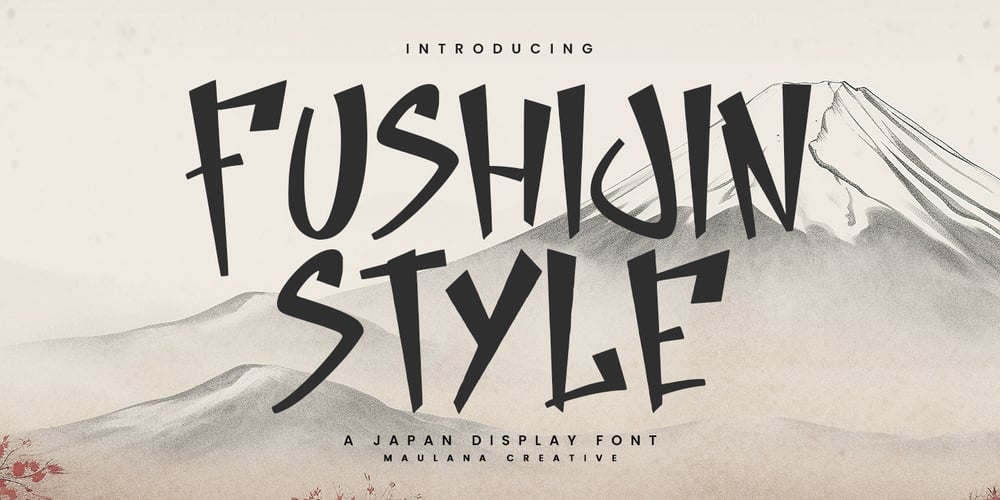
MC Fushijin Font Family was designed by Gilang Maulana and published by Maulana Creative. MC Fushijin contains 1 styles and family package options. Give your designs an authentic brush handcrafted feel. “Fushijin” is perfectly suited to japanese style, stationery, logo, typography quotes, website header, branding and more.Thanks for use this font.Maulana Creative